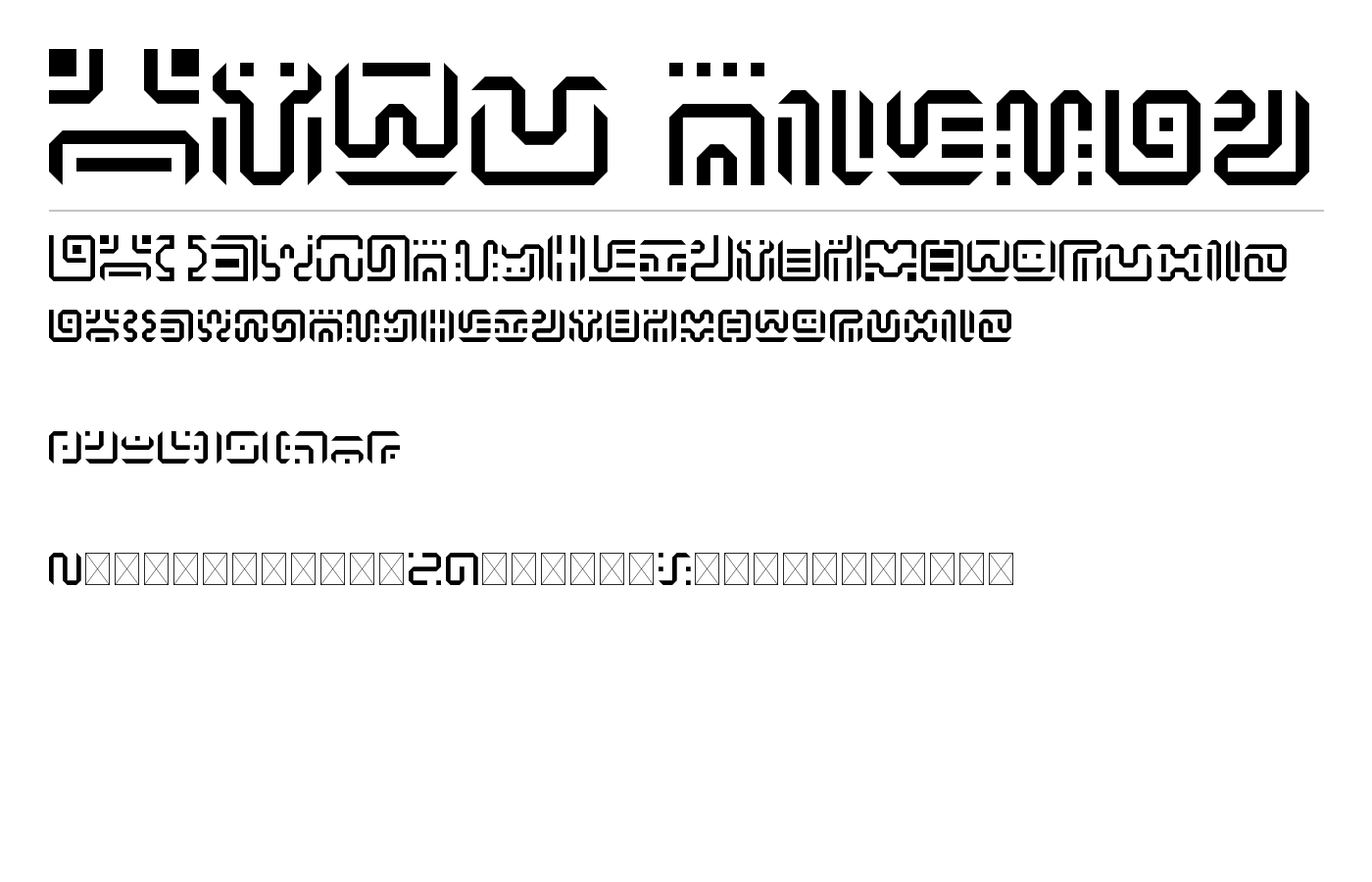
BOTW Hylian Font is a decorative, geometric typeface with a futuristic and mysterious vibe, inspired by ancient scripts. Its bold, angular shapes with high stroke contrast and blocky forms create a striking, tech-inspired look that works well for fantasy, sci-fi, and gaming-related designs. This font is best suited for logos, titles, and display purposes where a unique and immersive style is desired.
BOTW Hylian Font
About BOTW Hylian Font
| Font family | BOTW Hylian Font |
| Designer | Self Deletus |